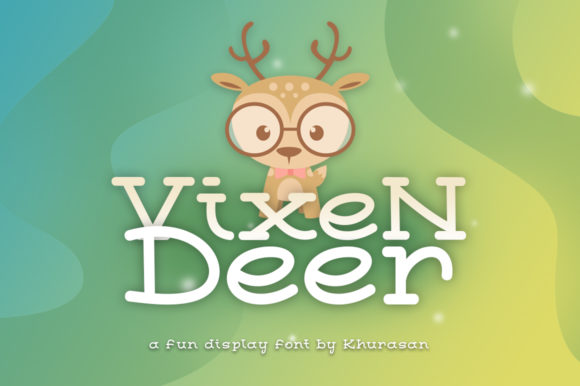
Vixen Deer Font
Embark on a Typographic Winter Wonderland with Vixen Deer Font: Your Gateway to Enchanting Christmas Designs
In a world where visual aesthetics hold immense power, typography often takes center stage, setting the tone and conveying emotions like no other design element. As the holiday season approaches, embrace the magic of Vixen Deer Font, a winter-themed display typeface that will transform your designs into captivating masterpieces. Let's delve into the enchanting world of Vixen Deer and discover why it's the perfect font for your Christmas-themed creations.
Vixen Deer: A Festive Delight for Your Design Palette
As you immerse yourself in the realm of Vixen Deer, you'll be greeted by a playful and cheerful font family that exudes the spirit of the holiday season. Its meticulously crafted characters dance across your screen, evoking feelings of warmth, joy, and nostalgia. Each letter is a work of art, adorned with intricate details and flowing lines that mimic the delicate snowflakes that gently fall on a winter's day.
With Vixen Deer as your creative companion, you'll have the power to weave enchanting tales through your designs. Whether you're creating Christmas cards, holiday flyers, social media graphics, or any other festive project, Vixen Deer will effortlessly elevate your designs to new heights of creativity.
A Myriad of Design Possibilities Awaits
The versatility of Vixen Deer is truly remarkable. Its charming personality shines through in a wide range of design applications, making it the perfect choice for both personal and professional projects. Unleash your imagination and let Vixen Deer guide you as you create:
- Enchanting Christmas Cards: Design heartfelt Christmas cards that convey warmth and joy to your loved ones. Vixen Deer's playful nature will add a touch of magic to your greetings, making them truly unforgettable.
- Festive Flyers and Posters: Create eye-catching flyers and posters that announce your holiday events or promotions. Vixen Deer's cheerful spirit will entice potential attendees and customers, ensuring a successful turnout.
- Magical Social Media Graphics: Engage your social media audience with captivating graphics that embody the holiday spirit. Vixen Deer's whimsical charm will make your posts stand out in the crowded digital landscape.
- Unique Branding Elements: Infuse your brand with the magic of Christmas by incorporating Vixen Deer into your logo, branding materials, and website design. Its distinctive style will leave a lasting impression on your customers, creating a strong brand identity.
The Magic of Vixen Deer: A Font That Captivates
Vixen Deer is more than just a font; it's an experience that transports you to a winter wonderland filled with joy, wonder, and endless creative possibilities. Its enchanting aura will cast a spell on your audience, leaving them captivated by your designs.
Don't let another holiday season pass without experiencing the magic of Vixen Deer Font. Embrace its cheerful spirit and watch as your designs come to life, spreading joy and enchantment wherever they go.